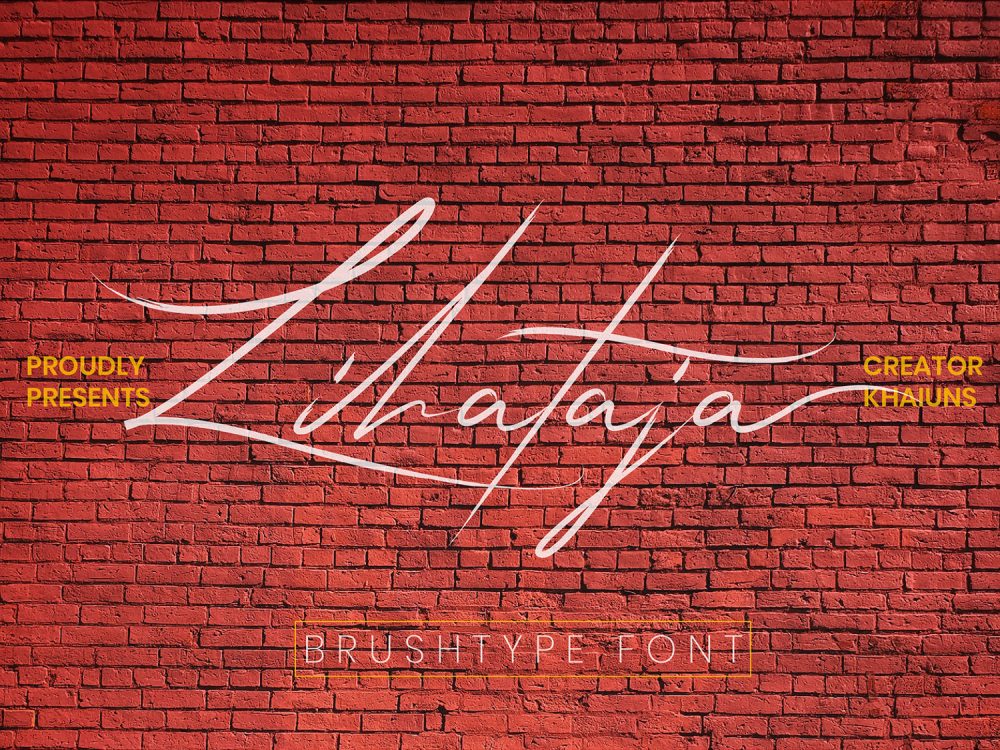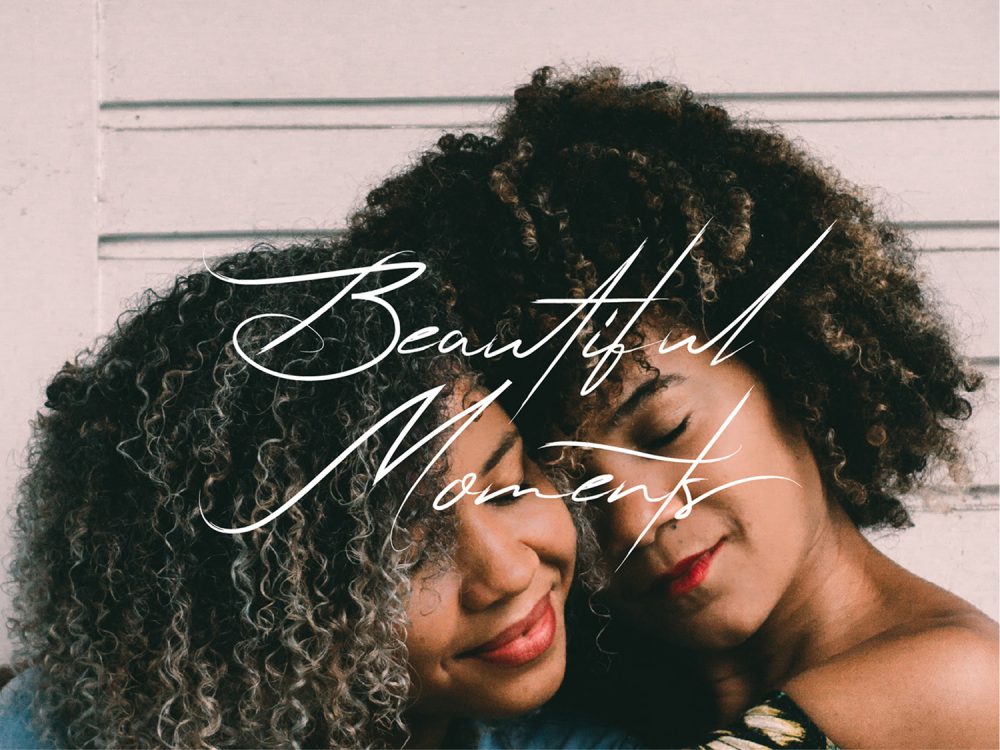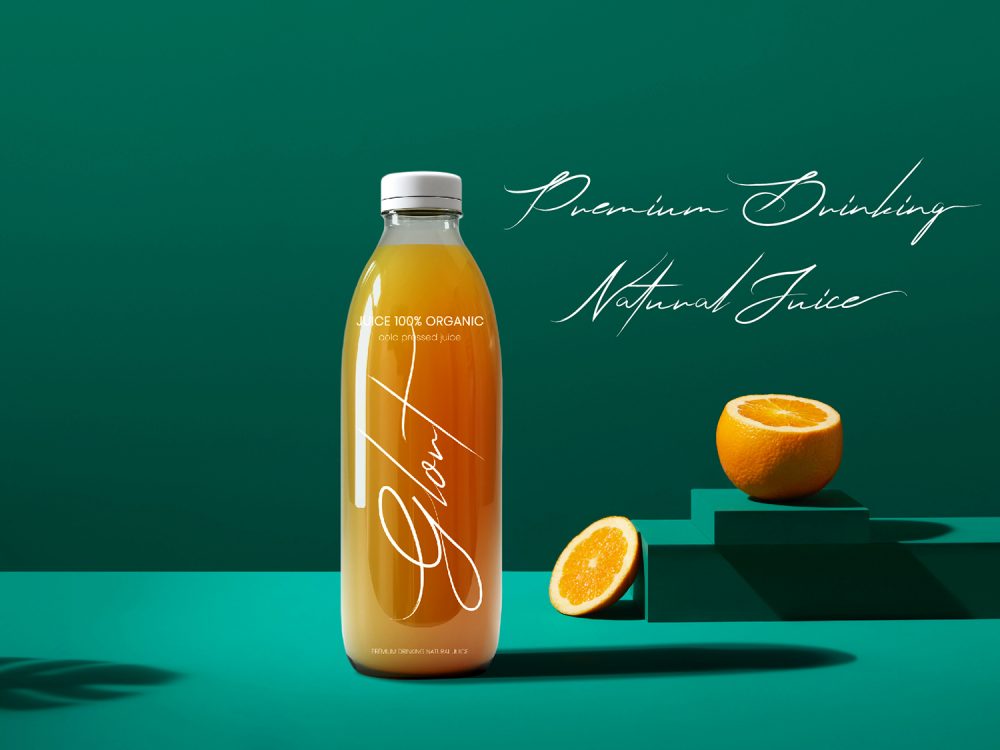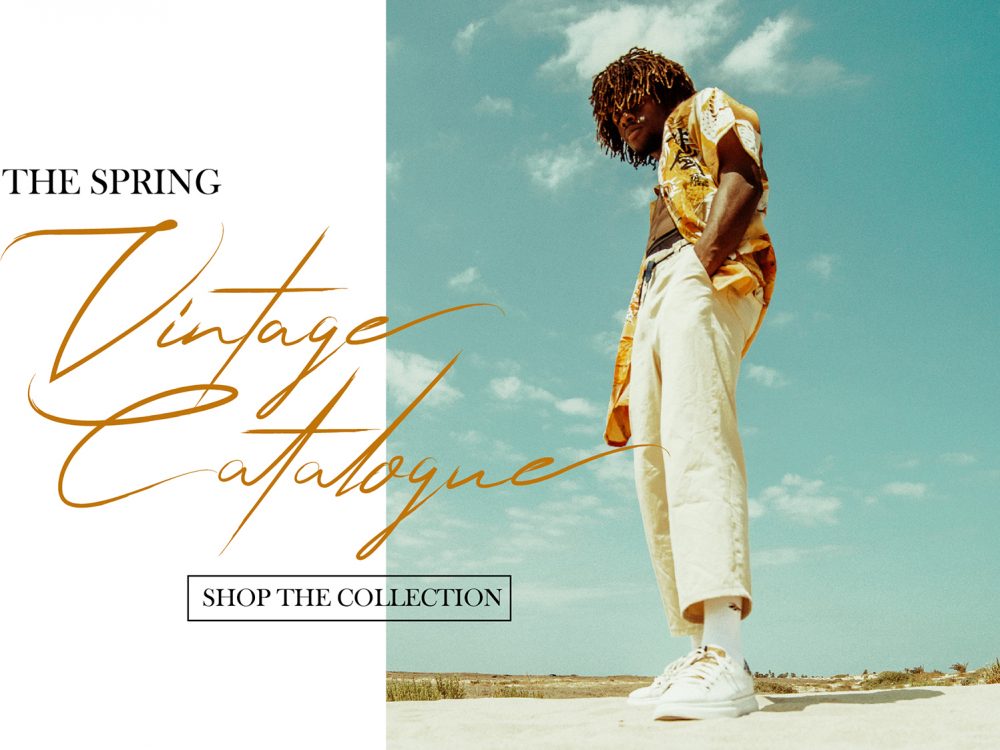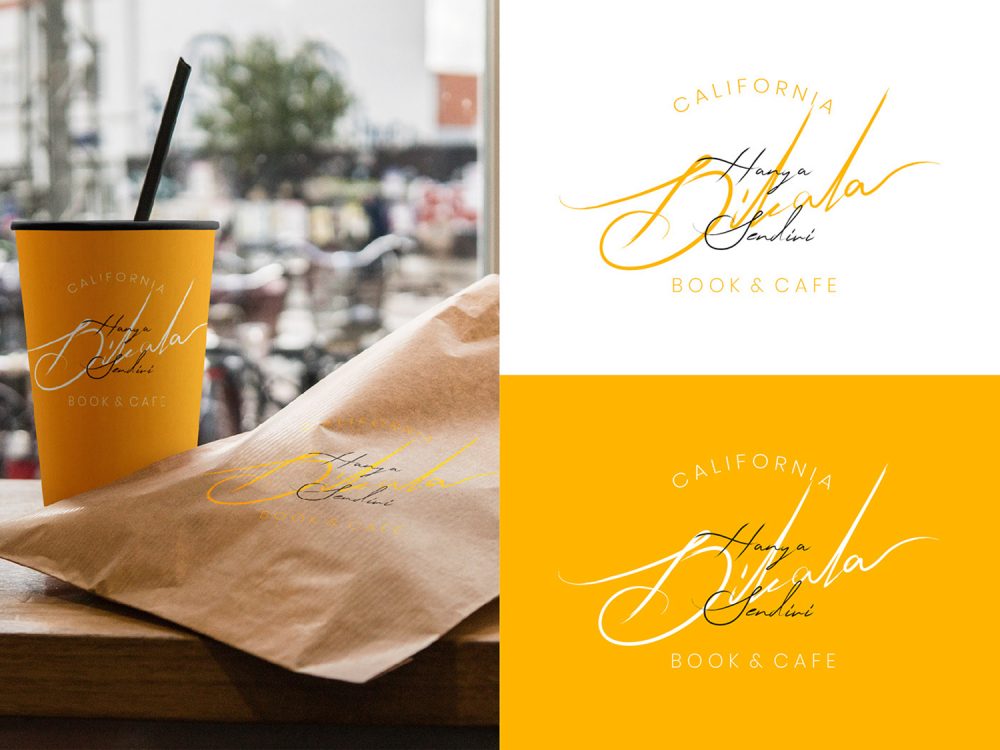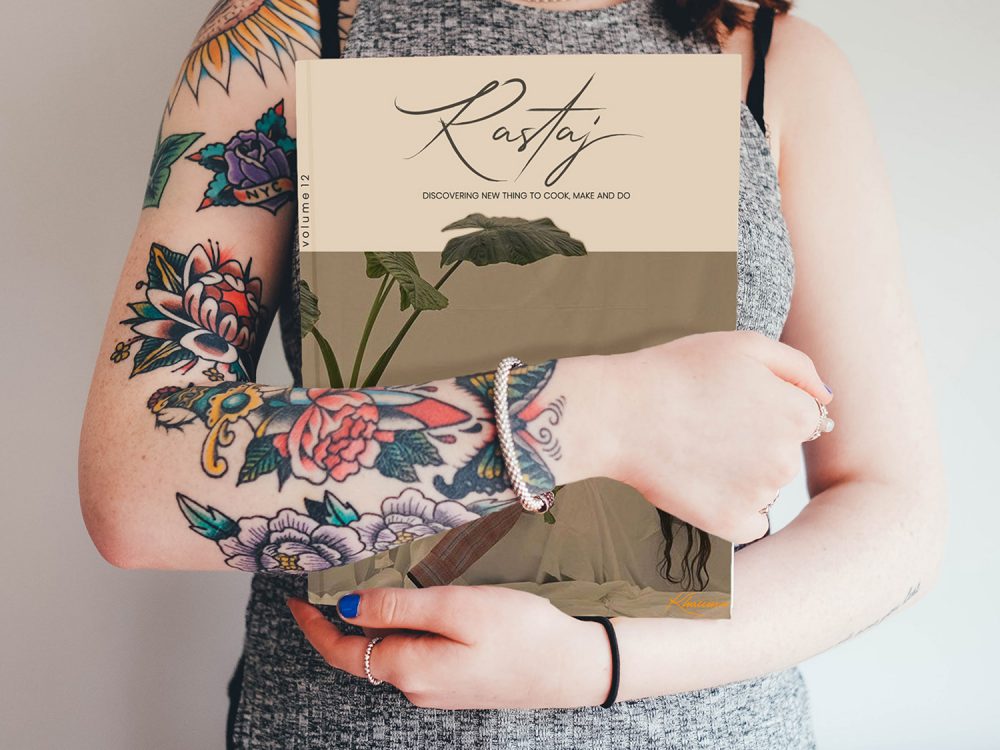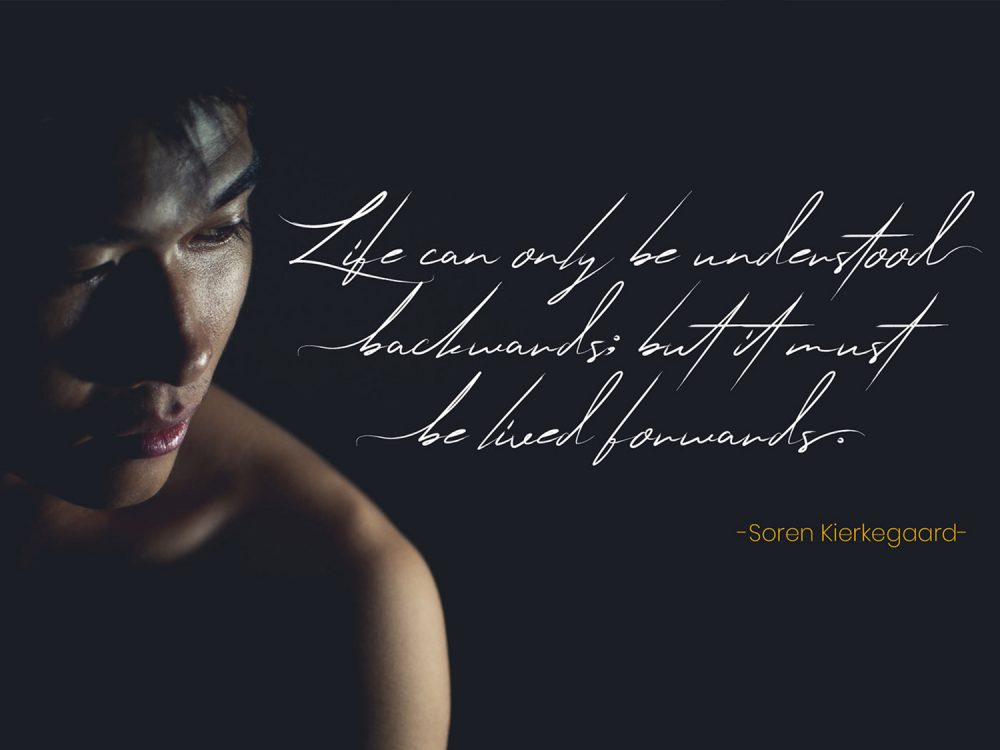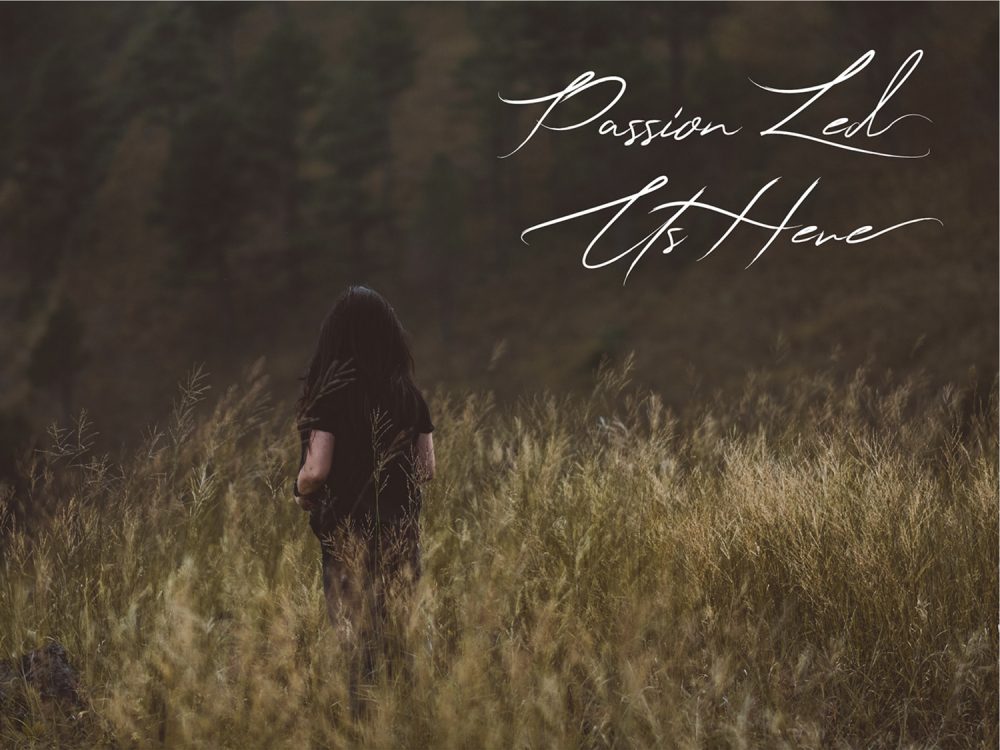
Lihataja Brush Script Font
Lihataja Brush Script Font is a modern and interesting typeface with elegant style and charm. This font is very suitable for a proportion of various design projects that need a memorable script font with a thin, elegant style. Use this font to create posters, wedding invitations, cards, branding, flyers, prints, and more. If you wish to access more features and use them for commercial work please buy the full version.